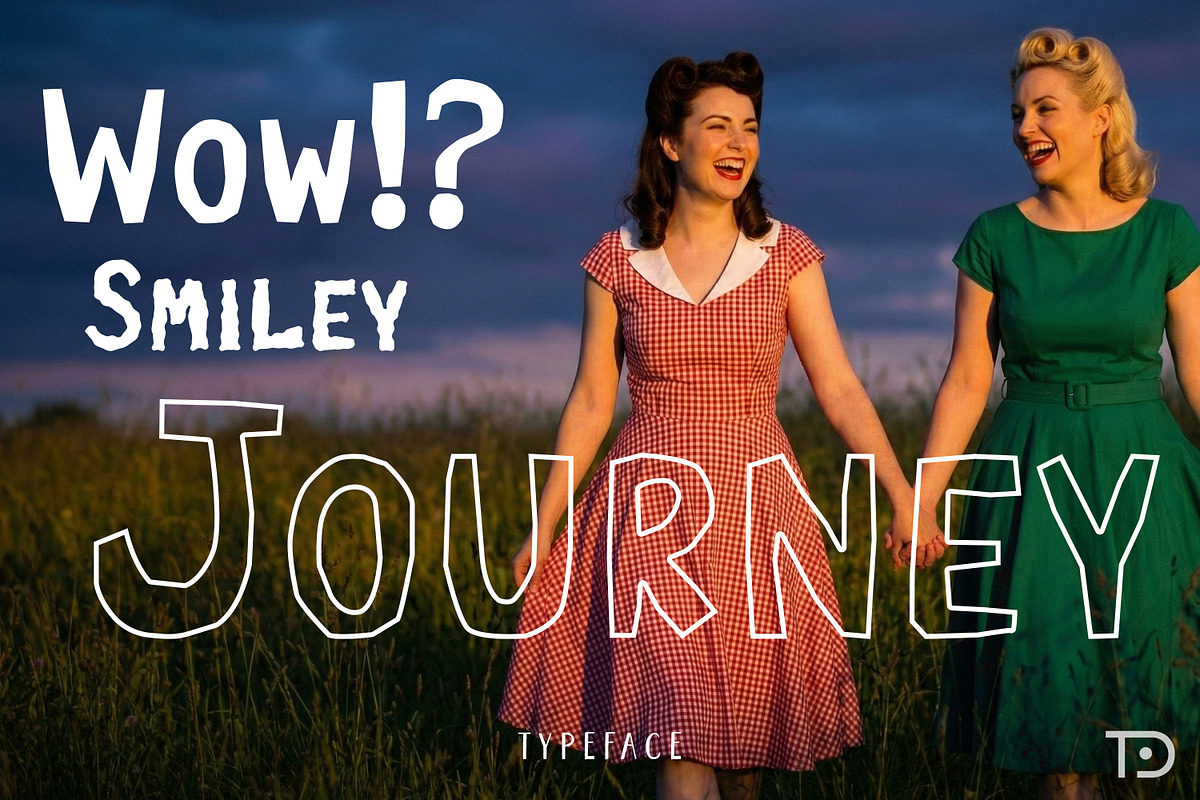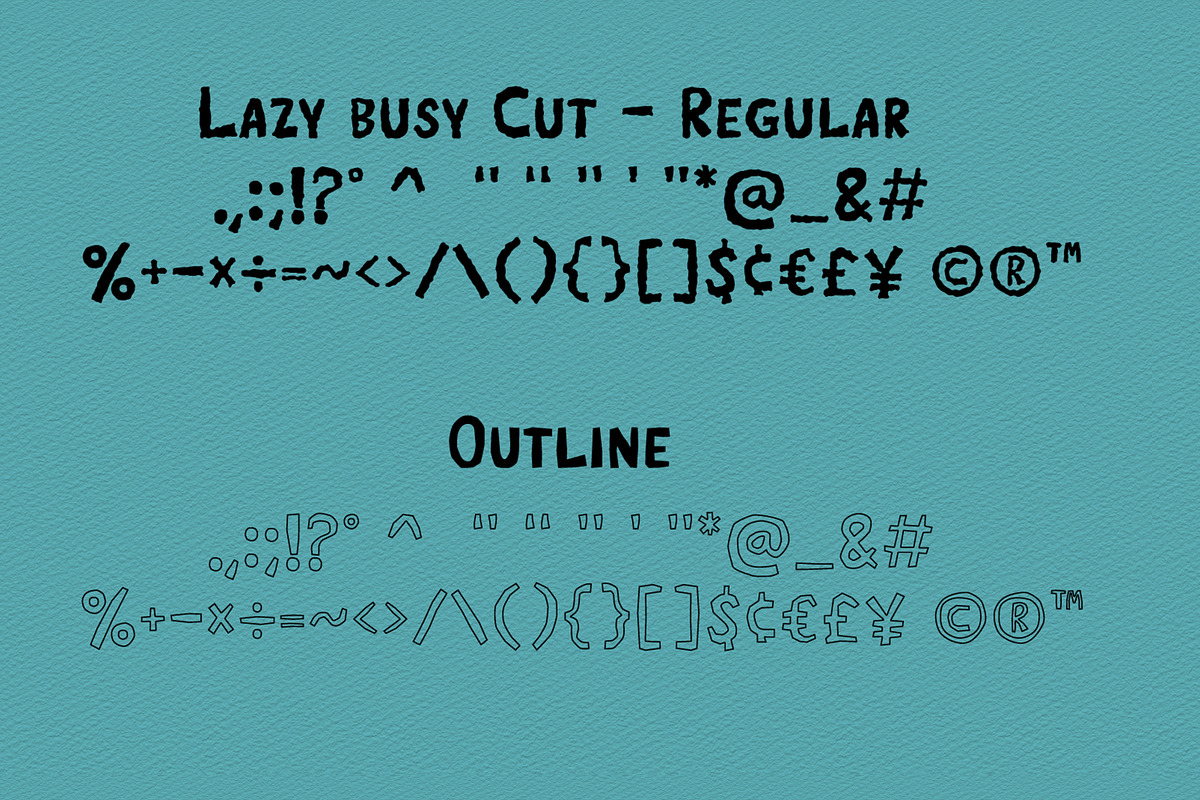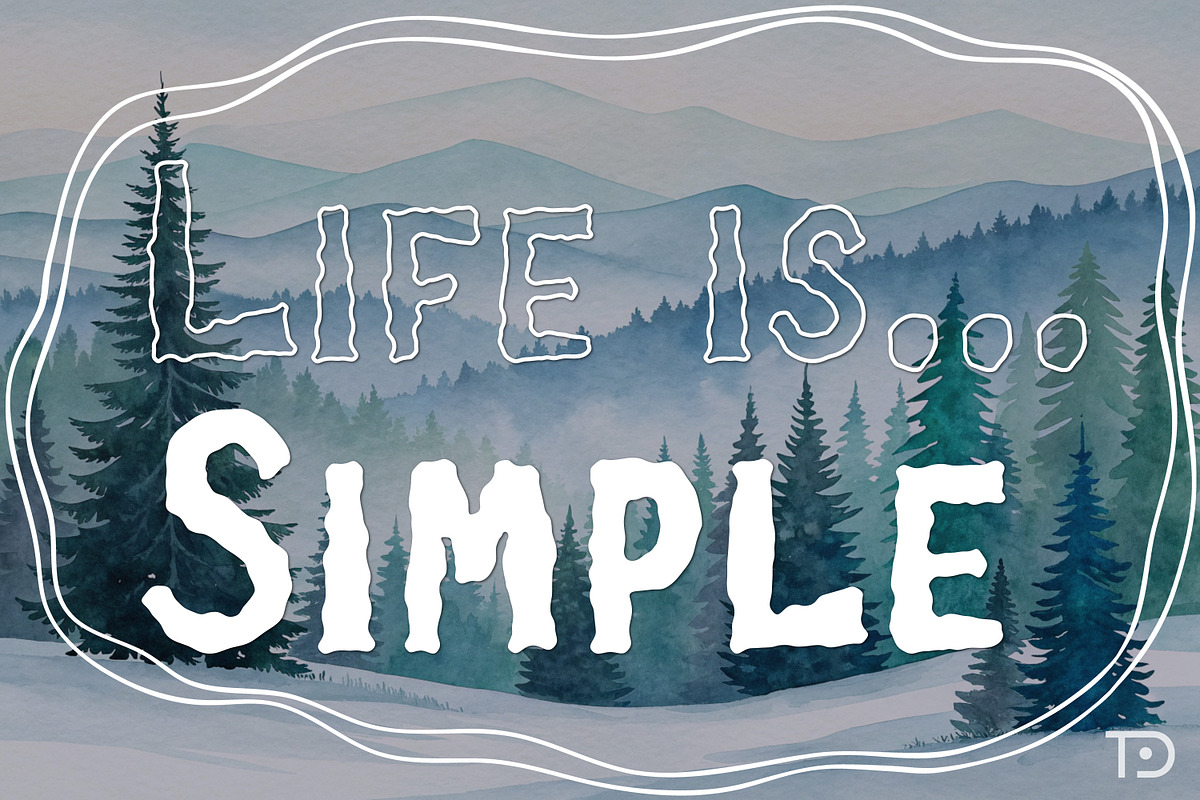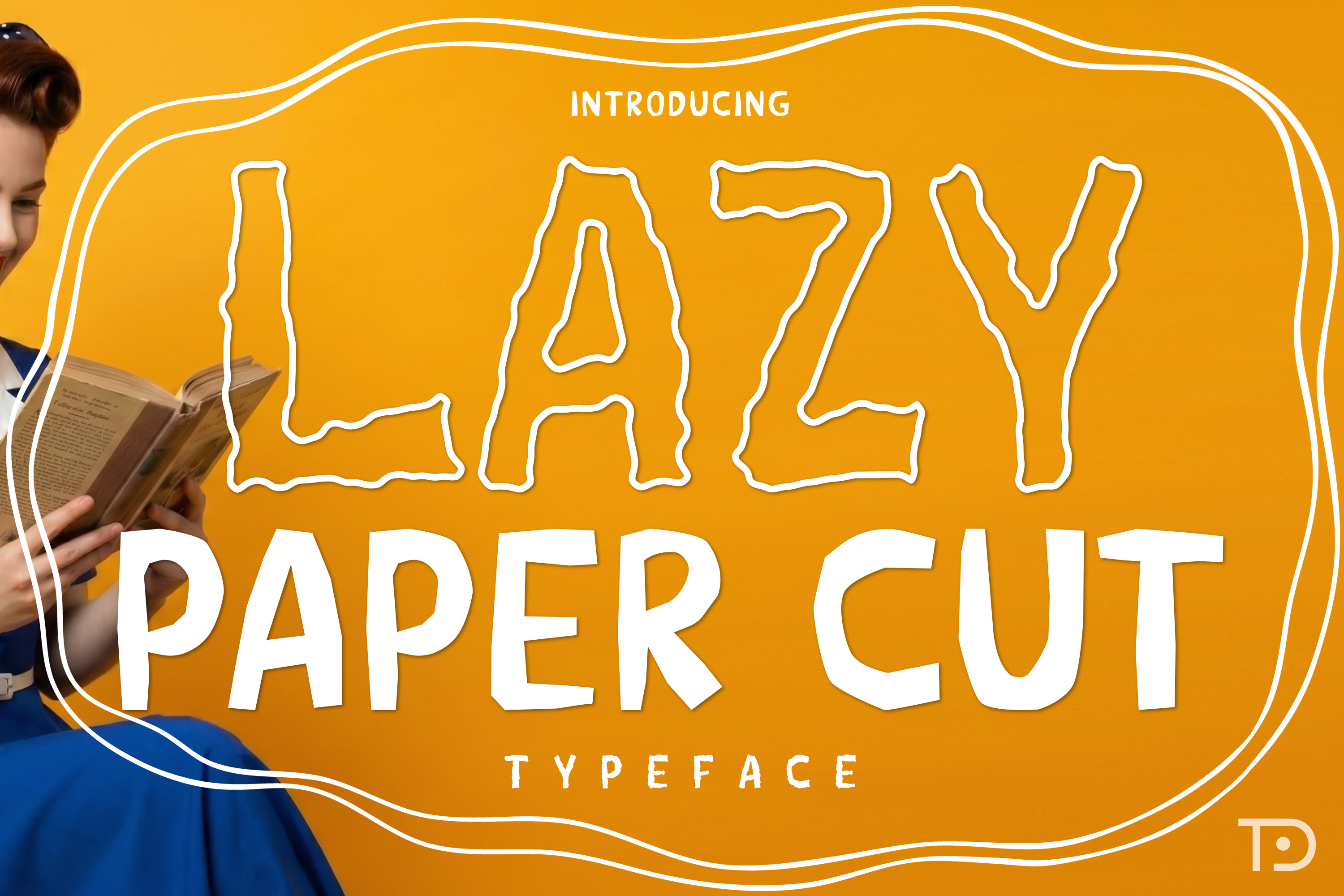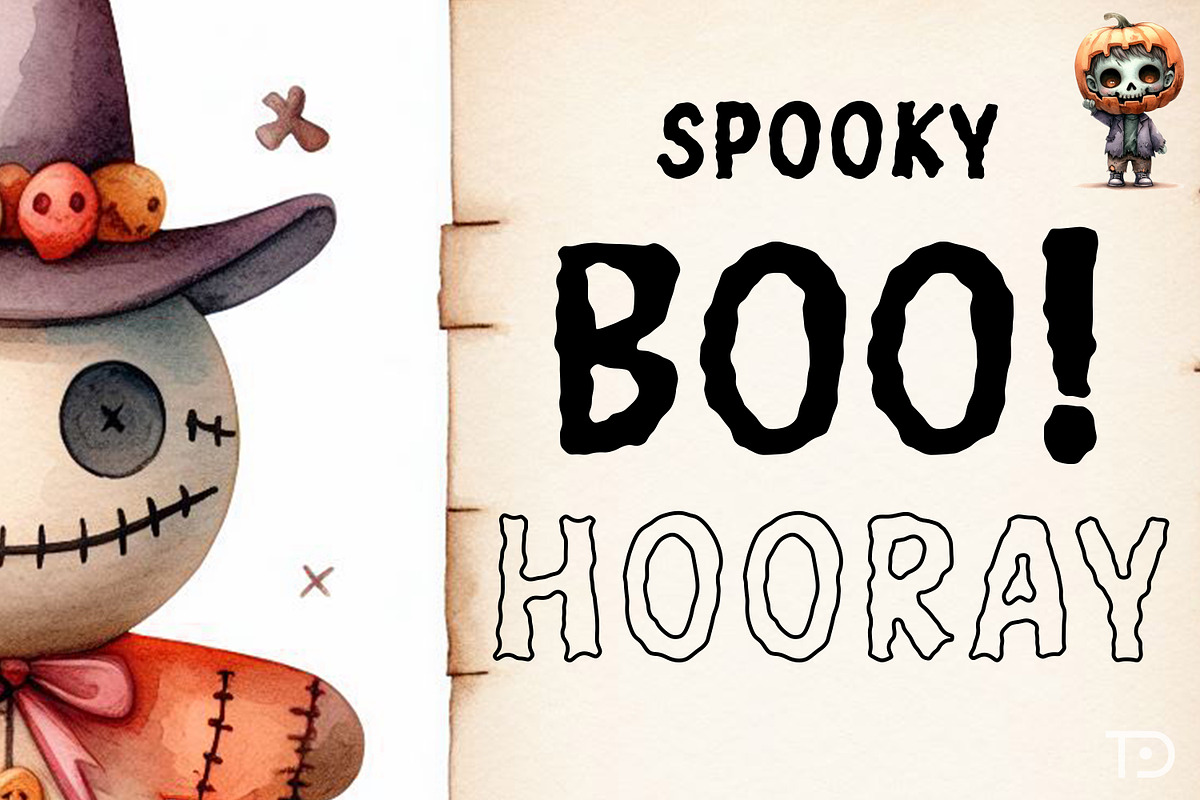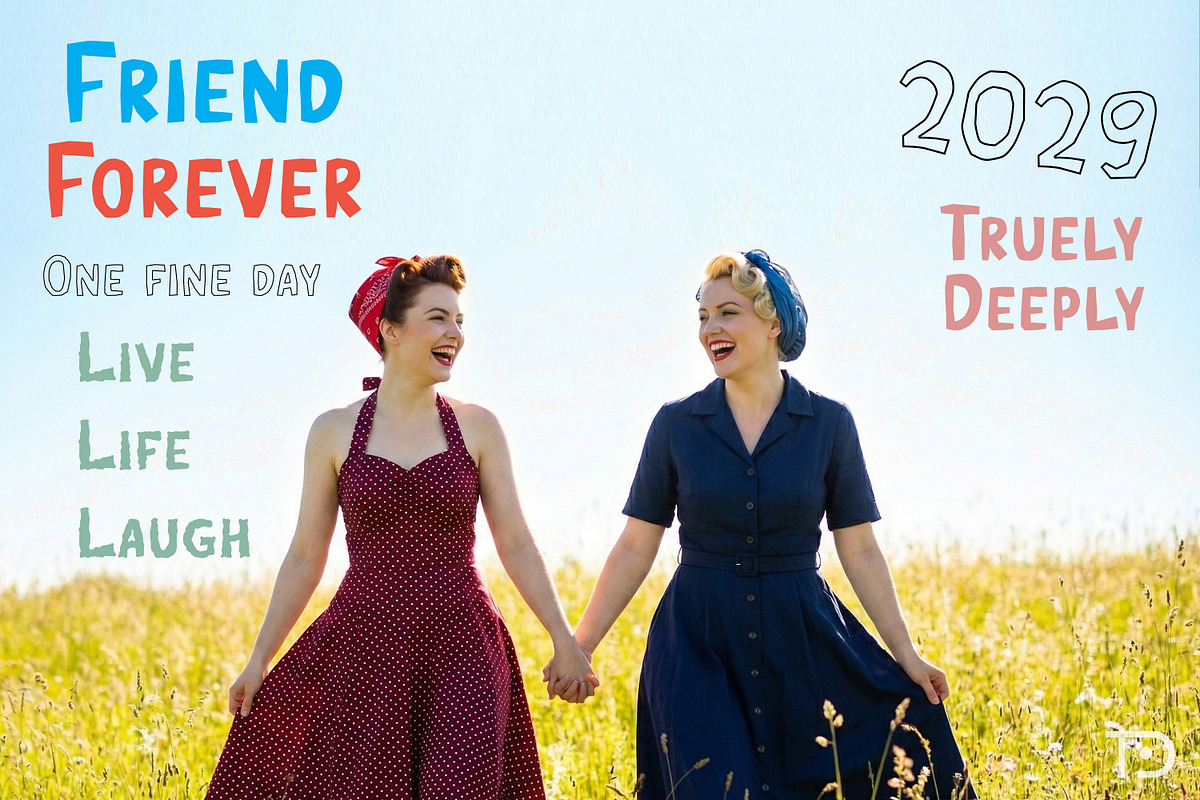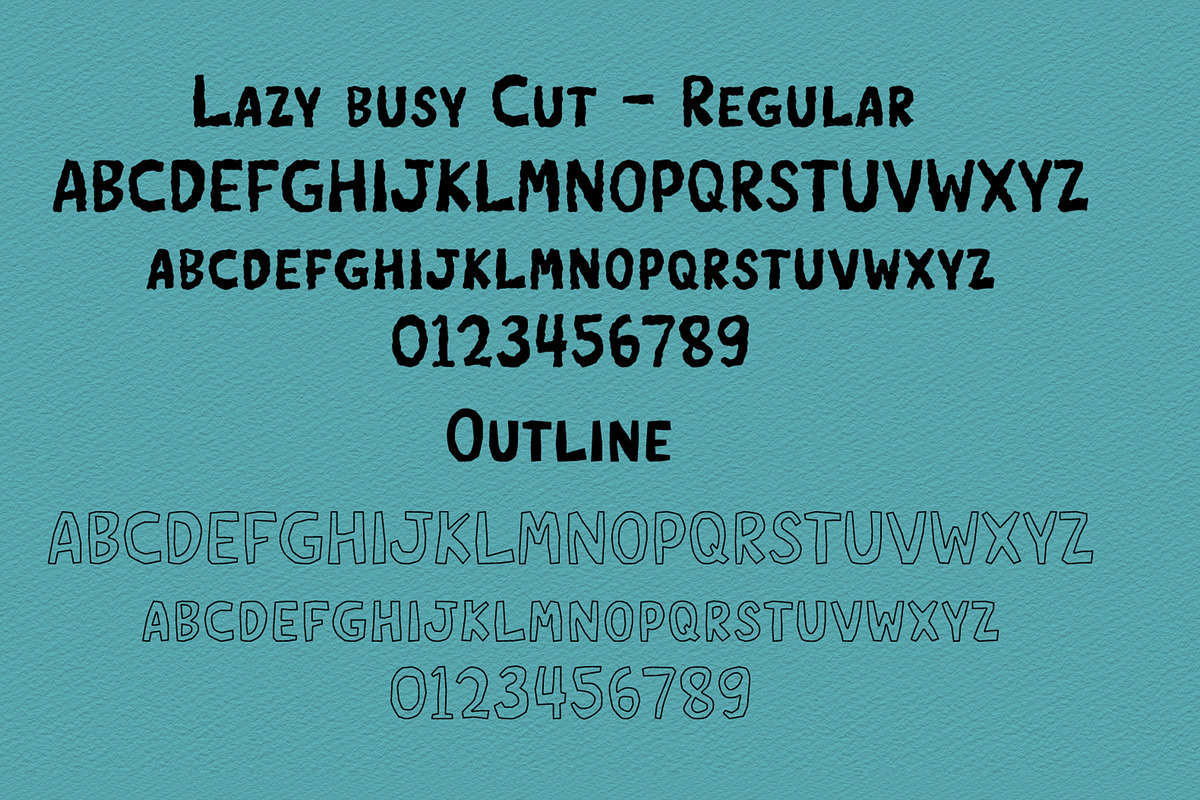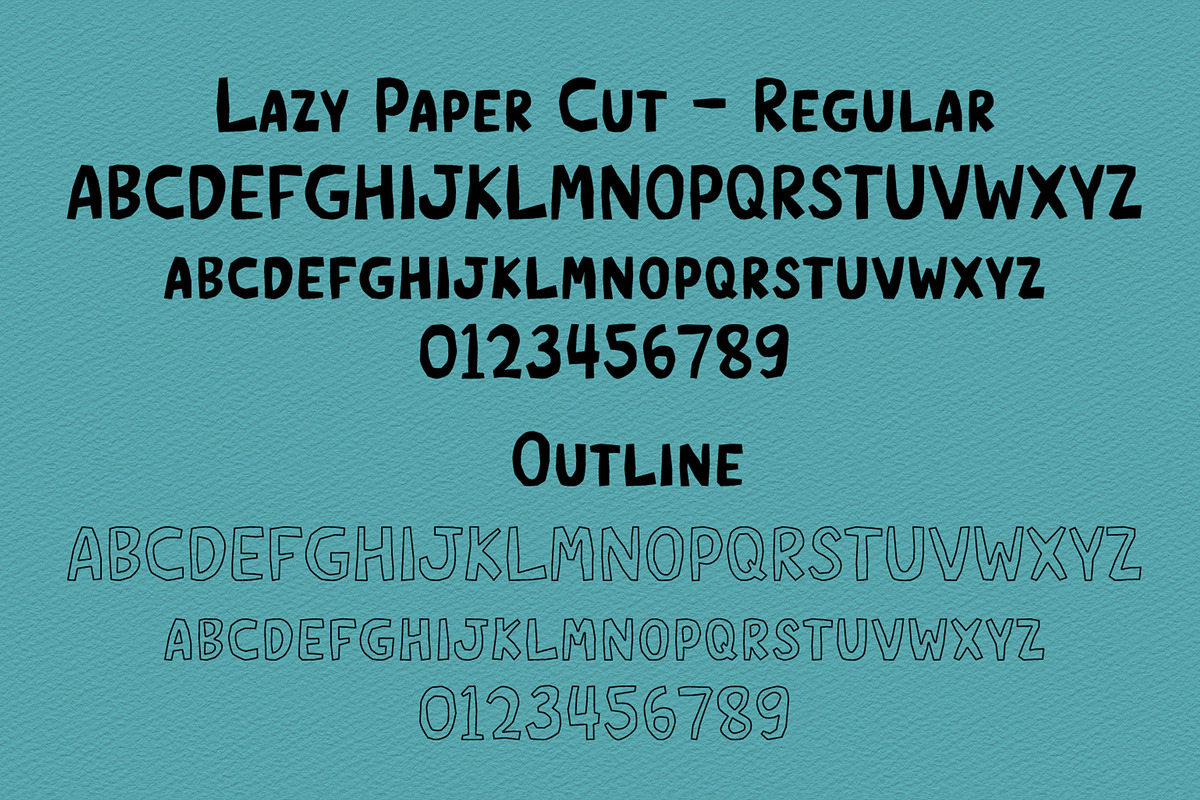
Lazy Paper Cut Four Bundle Font
Introducing the Lazy Paper Cut 4 fonts bundle, a whimsical font bundle that effortlessly fuses a bold, handcrafted design with the nostalgic charm of paper cuts. Exhibiting a rough and wavy texture, this stylized font is an extraordinary tool to inject character and individuality into your creations. The playful vibe it radiates is perfect for imprinting your mark on t-shirts, setting a unique identity for your brand, or designing festive packaging for holidays. It's equally effective in adding creative touch to greeting cards, enhancing café menus with its relaxed and homey feel, or even inspiring DIY projects with its expressive form. Embrace the hand-drawn magic of the Lazy Paper Cut 4 font bundle and watch your design blossom with charisma and creativity.